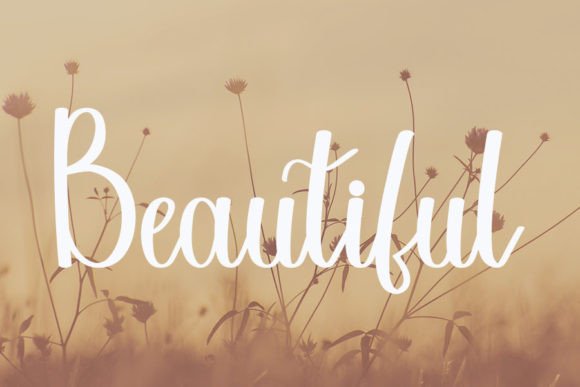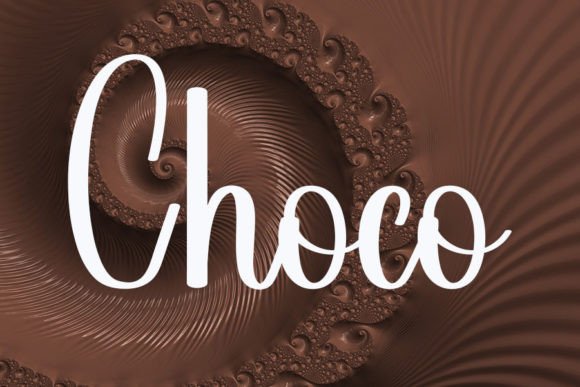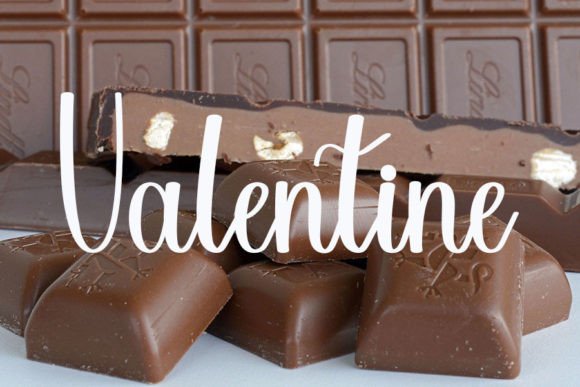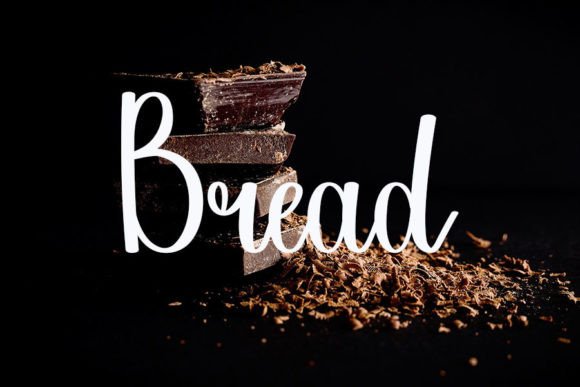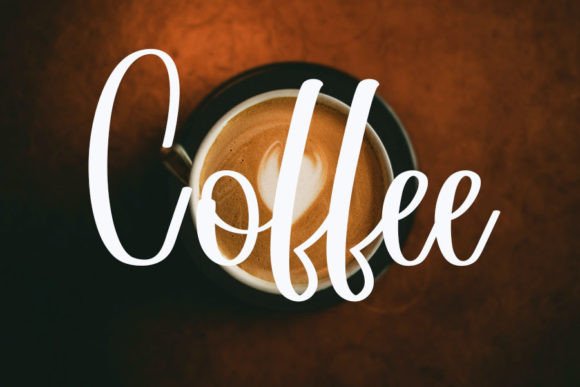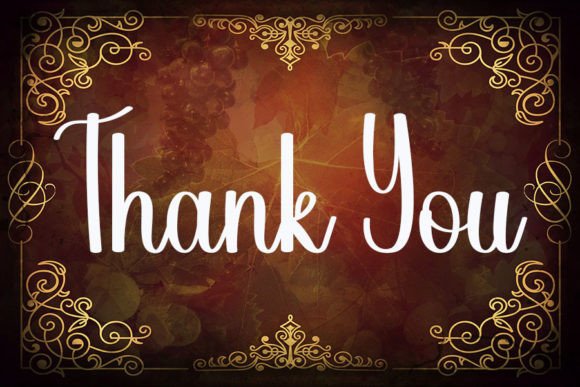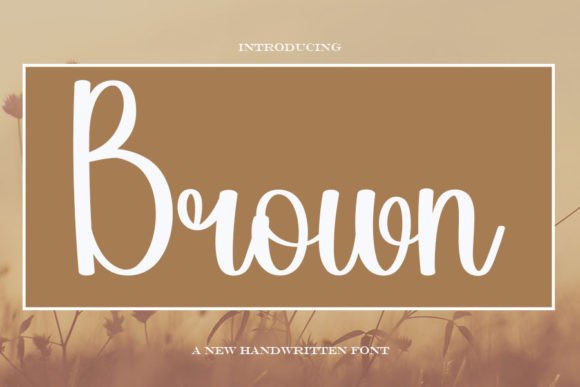
Brown Font: Elevate Your Designs with Elegance and Timeless Style
Brown Font is a stunning handwritten font that has captured the hearts of designers and crafters alike. With its elegant touch and incredibly distinct style, it’s the perfect addition to your favorite projects. In this article, we’ll dive into the world of Brown Font, exploring its unique features, uses, and benefits.
The Beauty of Brown Font
Brown Font is a masterpiece of typography, boasting a neat and beautiful handwritten design that exudes sophistication and refinement. Its elegant touch is perfect for creating spectacular designs that leave a lasting impression. Whether you’re working on a branding project, invitation, or social media graphic, Brown Font is sure to elevate your work to new heights.
What Makes Brown Font So Special?
So, what sets Brown Font apart from other fonts? Here are a few key features that make it a standout:
- Distinct and timeless style: Brown Font’s unique design is both classic and modern, making it perfect for a wide range of projects.
- Elegant touch: The font’s smooth, flowing lines and subtle curves create a sense of sophistication and refinement.
- Handwritten charm: Brown Font’s handwritten design adds a personal touch to your projects, making them feel more approachable and relatable.
Uses for Brown Font
Brown Font is incredibly versatile, making it suitable for a wide range of projects and applications. Here are a few ideas to get you started:
- Branding and logos: Use Brown Font to create a unique and memorable brand identity that stands out from the crowd.
- Invitations and events: Add a touch of elegance to your invitations, wedding stationery, and event branding with Brown Font.
- Social media graphics: Use Brown Font to create eye-catching social media graphics, quotes, and inspirational messages.
- Packaging and product design: Add a personal touch to your product packaging and design with Brown Font.
Benefits of Using Brown Font
So, why should you choose Brown Font for your next project? Here are a few benefits to consider:
- Easy to read: Brown Font is clear and legible, making it perfect for body text and captions.
- Highly versatile: Brown Font works well in a variety of contexts, from digital to print.
- Unique and memorable: Brown Font’s distinct style will help your project stand out from the crowd and leave a lasting impression.
Tips for Using Brown Font
To get the most out of Brown Font, here are a few tips to keep in mind:
- Use it sparingly: Brown Font is best used as an accent font or for headlines, rather than body text.
- Pair it with other fonts: Combine Brown Font with other fonts to create a unique and visually appealing typography scheme.
- Experiment with colors: Brown Font looks great in a range of colors, so don’t be afraid to experiment and find the perfect hue for your project.